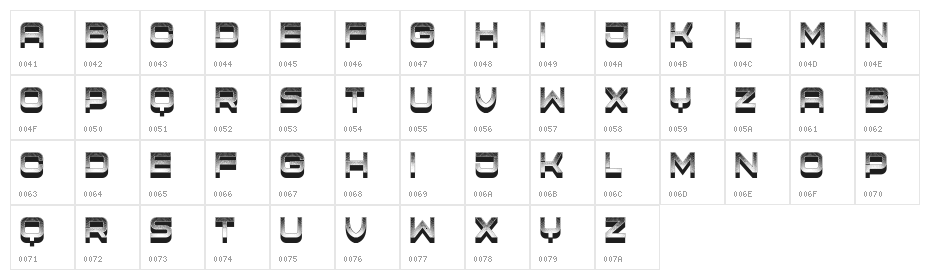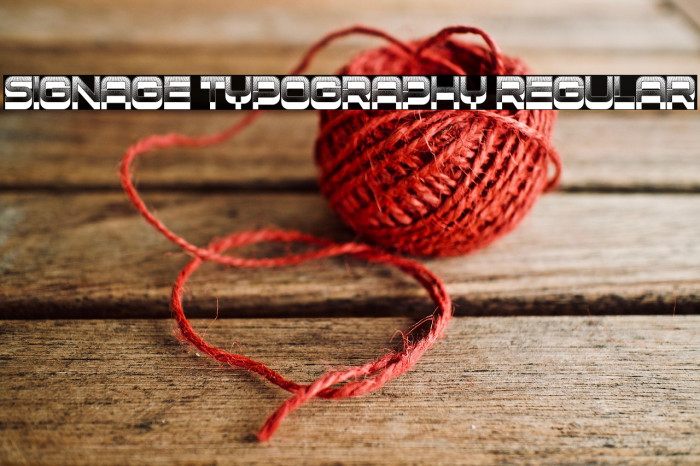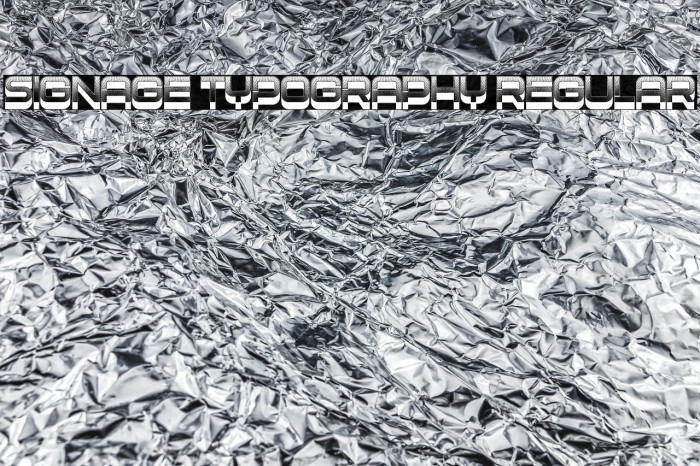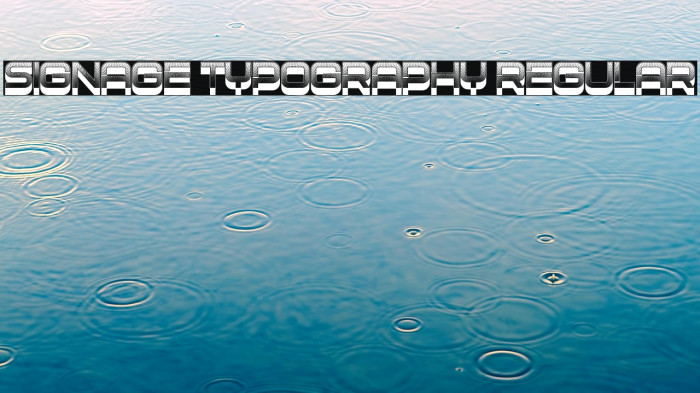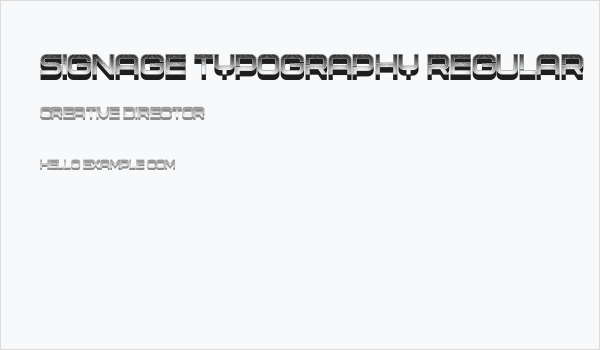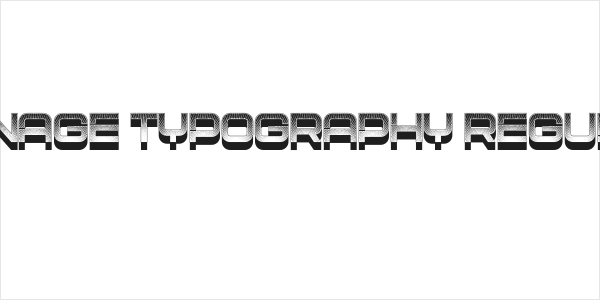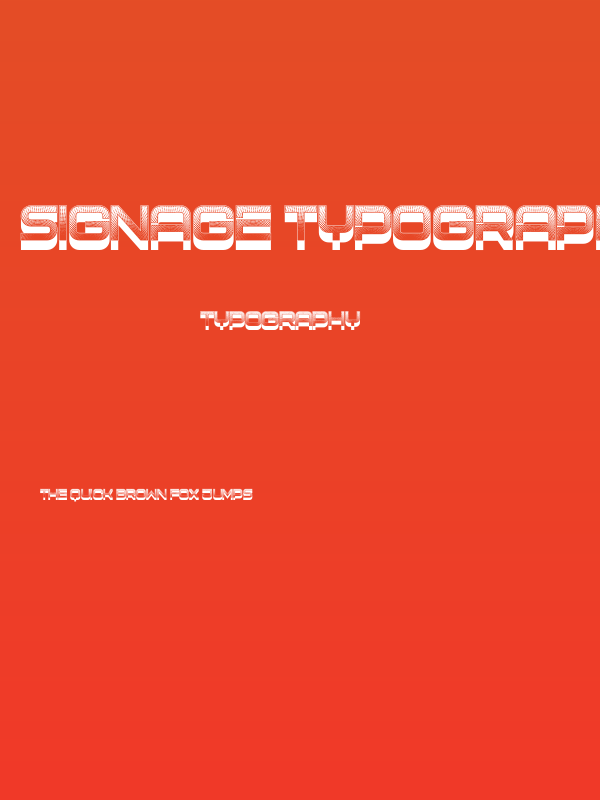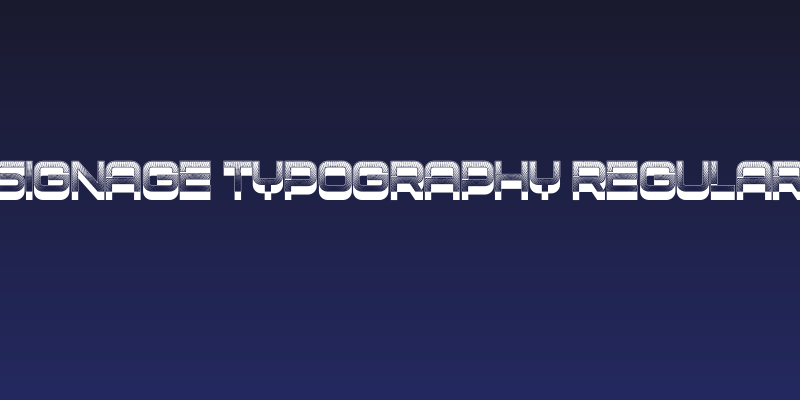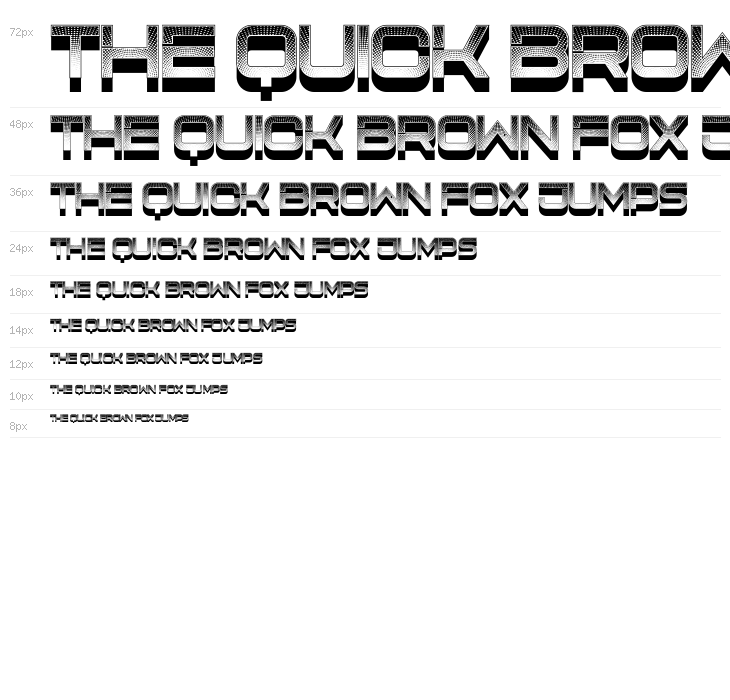
Signage Typography Regular Font
Signage Typography Regular Description
This font features a bold, decorative style with a three-dimensional effect, achieved through a combination of solid and patterned fills. The letters are uppercase and have a geometric, block-like structure, giving them a strong and impactful appearance. The intricate detailing within each character adds depth and visual interest, making it suitable for eye-catching designs. The font's unique style is reminiscent of vintage signage, with a modern twist that makes it versatile for various creative applications.
| Proposed Projects | Ideal for signage, posters, branding, and any project requiring a standout, decorative typeface. |